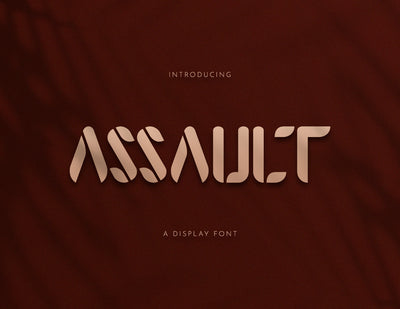
Assault Modern Display Font
Assault is a font with a bold straight style. It has unique fracture, make this font look more special. With bold body and its fracture or space line, give us a tough and old feel. We made Assault which inspired from bullet on fire gun. Its characteristic and creatures make "Assault" is appropriate for all the type of your product or design. This font featuring 26 alphabets and symbol.
Assault is perfect for headlines, logo, poster, social media post, advertisement, label, product design, and any projects that need display font.